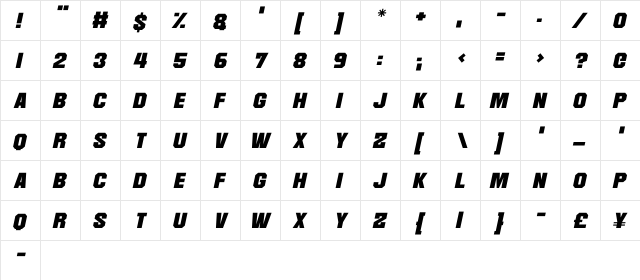
Martian Robotics Italic
Design Context for Martian Robotics Typeface
Martian Robotics offers clean, dependable letterforms without strong stylistic allegiance, making it a practical choice for designers who need flexibility. The slanted form adds forward momentum and visual energy.
Pro Tip: Try Martian Robotics for annotation and caption copy alongside an upright companion — the contrast in angle creates a dynamic but ordered typographic system.